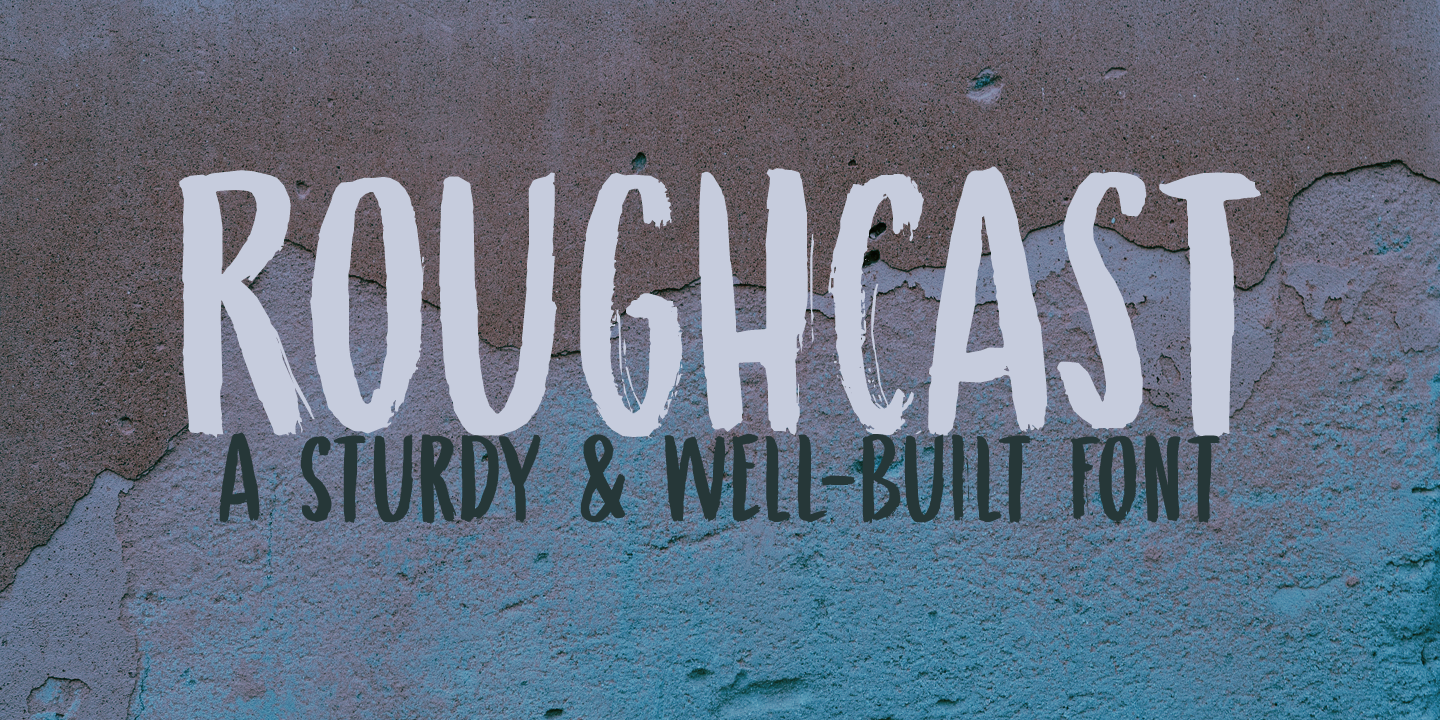
This textured typeface excels in various rugged applications including construction company branding, concrete product packaging, industrial design studios, urban architecture presentations, brutalist art exhibitions, DIY workshop materials, masonry business logos, and raw material suppliers. The Roughcast Font embodies industrial authenticity with its deliberately unfinished letterforms that showcase the raw beauty of concrete textures and construction materials.
What makes this font truly exciting is its honest celebration of imperfection and industrial craftsmanship, creating characters that feel freshly poured from concrete forms with authentic surface variations. The texturally rich letters feature rough edges, aggregate-inspired details, and uneven surfaces that make every word feel like it's been cast in industrial-strength materials. Its distinctive personality combines brutalist aesthetics with functional design, creating typography that honors the beauty of raw construction.
The Roughcast Font family includes construction-grade variations: Regular, Bold, Extra Bold, Weathered, and Smooth styles, plus alternate characters with varying texture levels. Each family member maintains the signature industrial character while providing flexibility for creating designs that range from subtly textured to heavily distressed.